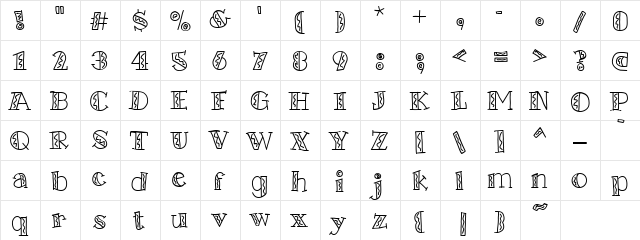
Scrap Swoop Regular
Design Context for Scrap Swoop Typeface
Scrap Swoop is a composed and adaptable typeface that performs quietly and consistently across a wide range of design contexts.
Pro Tip: Use Scrap Swoop in both headline and body roles to test its range before committing to a single application.